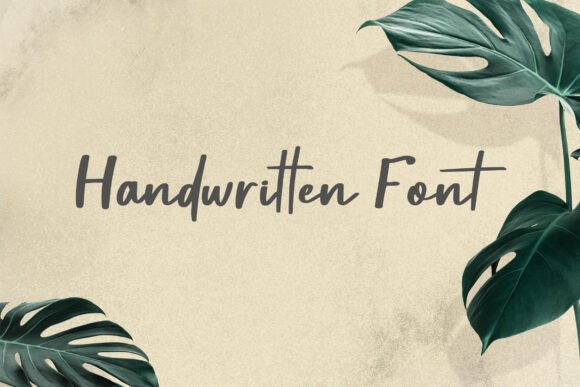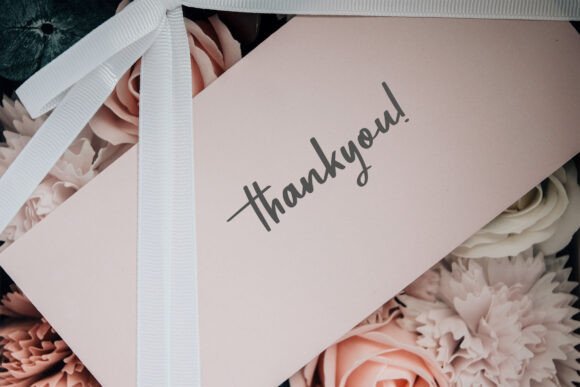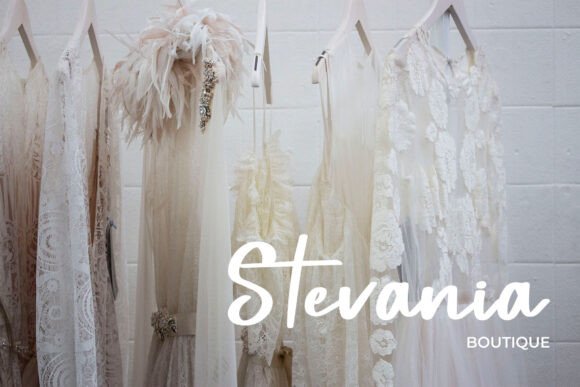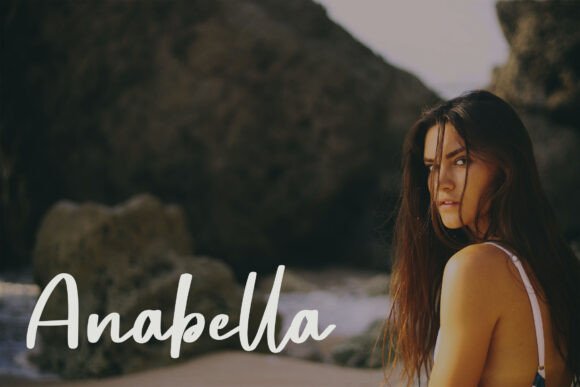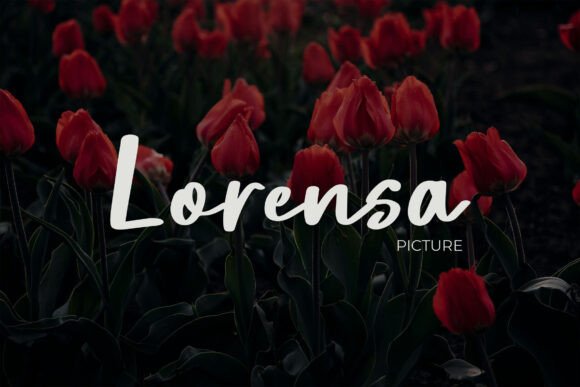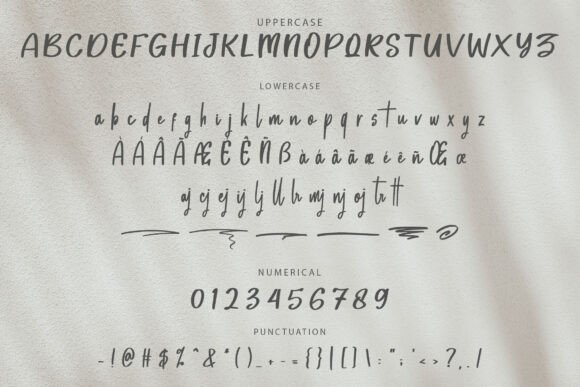
Introduction to Matiakid Font
Remember the moment when you stumbled upon the perfect font that elevated your design from ordinary to extraordinary? For many designers, that moment is a game-changer. It’s the spark that ignites creativity and takes their project to the next level. If you’re one of them, or if you’re looking for that special something to add an authentic touch to your designs, you’re in luck. We’re excited to introduce you to the vibrant and expressive Matiakid Font, a high-quality handwriting font that’s about to become your go-to design resource.
With its unique, hand brush style, Matiakid Font is perfect for designers who want to add a bold, artistic feel to their branding, packaging, social media content, and more. Whether you’re working on a creative project or just need a reliable font for your designs, Matiakid Font is a valuable addition to your toolkit. And the best part? You can download it for free, with a transparent background that makes it easy to use in any design scenario.
Key Features of Matiakid Font
- High-quality font suitable for creative projects, offering a unique and elegant design style.
- Features a transparent background, allowing for seamless layering and blending with other design elements.
- Designed to be highly legible at various font sizes and resolutions, making it suitable for both digital and print applications.
- Supports multiple languages, making it a versatile design resource for global creative projects.
Honest Review: Matiakid Font
I recently had the chance to work with the Matiakid Font and I must say it’s a great addition to any designer’s toolkit. One of the standout features of this font is its high quality and unique design style, making it perfect for creative projects that require a touch of elegance.
Here are some things that work well with the Matiakid Font:
- ✨ High quality design that’s perfect for print or digital projects
- ✨ Unique and stylish aesthetic that’s sure to grab attention
- ✨ Transparent background, allowing for easy customization and integration with other design elements
- ⚠️ Limited font styles available, which may not be suitable for projects that require a wide range of font options
Overall, I’m impressed with the Matiakid Font and would highly recommend it to designers looking for a high-quality, unique font for their creative projects. With its free download and transparent background, it’s an excellent design resource to have in your toolkit.
The Matiakid Font is ideal for various design projects, such as branding, advertising, and digital art. Its high-quality design and transparent background make it a versatile resource for designers and artists.